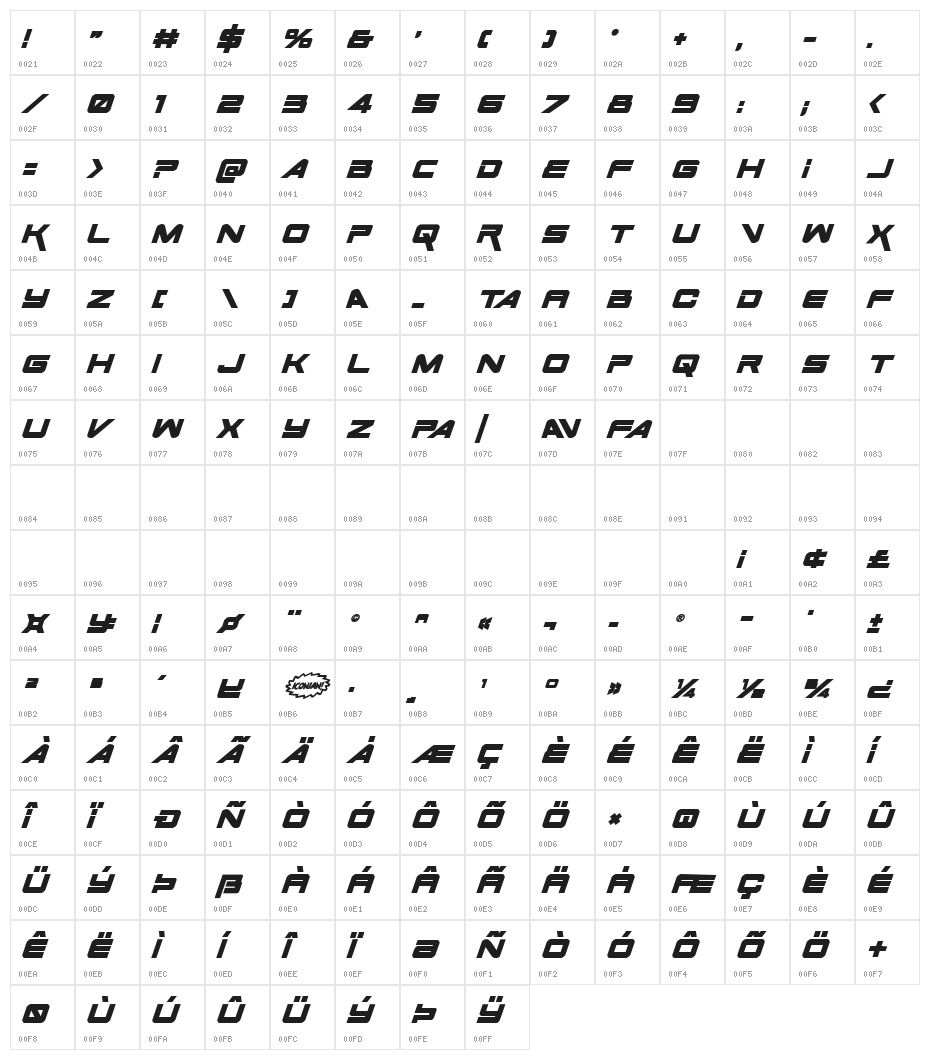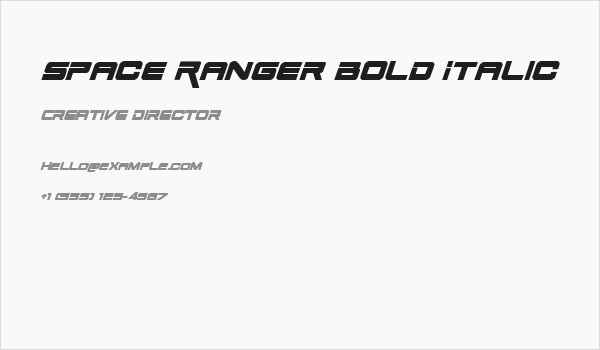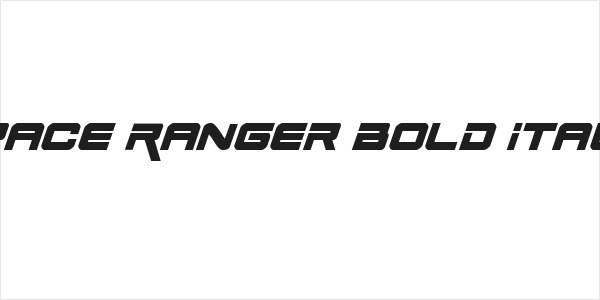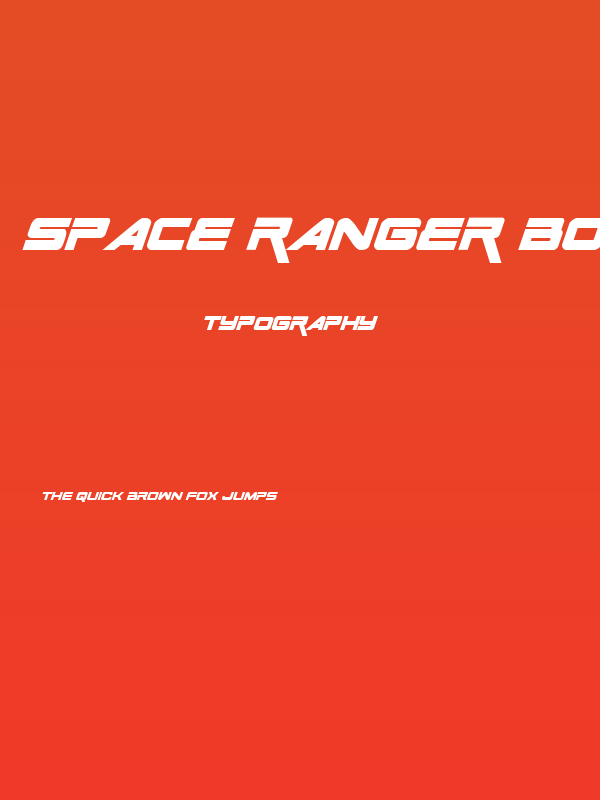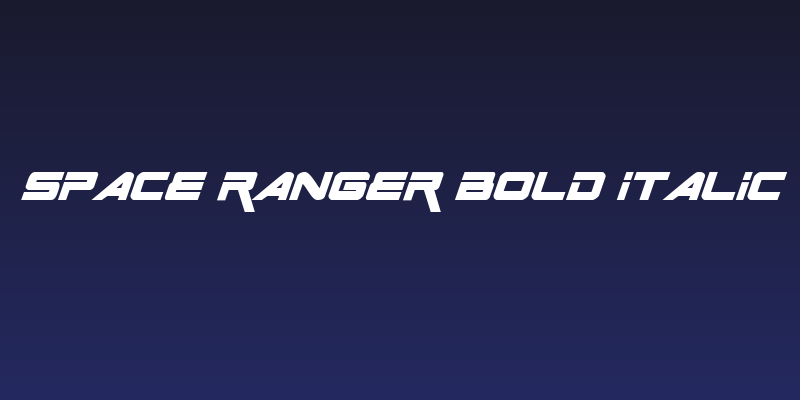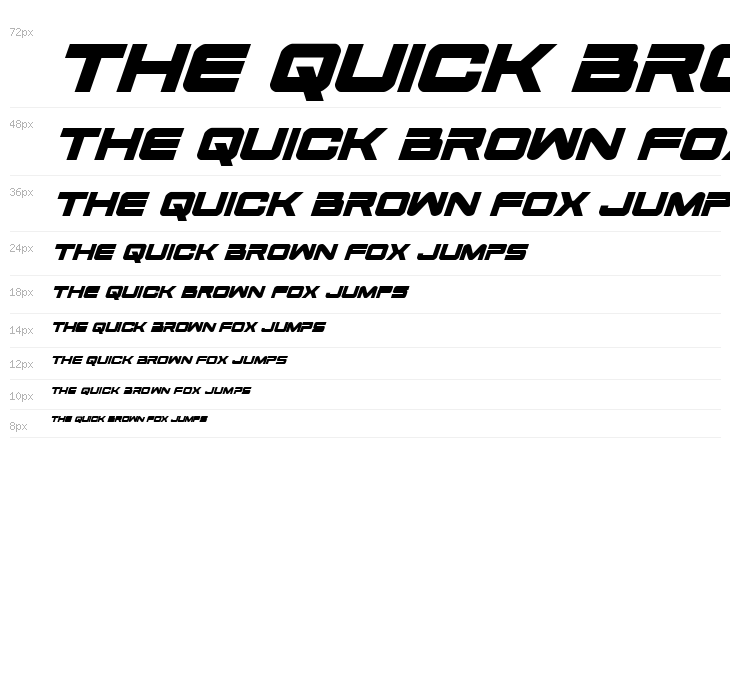
Space Ranger Bold Italic Font
Space Ranger Bold Italic Description
This font features a bold and italicized style with a futuristic and dynamic appearance. The characters are slanted forward, giving a sense of motion and speed. The strokes are thick and consistent, providing a strong presence on the page. The design incorporates sharp angles and clean lines, making it ideal for modern and tech-oriented projects. The uppercase and lowercase letters maintain a uniform style, while the numerals and special characters complement the overall aesthetic. This font is perfect for creating eye-catching headlines, logos, and branding materials that require a contemporary and energetic look.
Proposed ProjectsIdeal for tech branding, sci-fi posters, video game titles, and modern advertising.